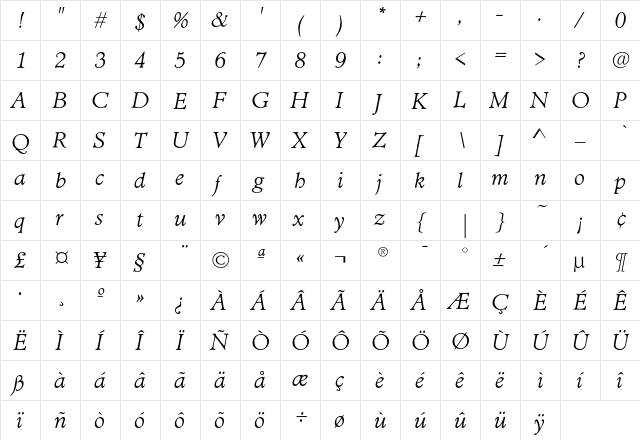
MinisterEF LightItalic Font Preview
MinisterEF LightItalic
Design Context for MinisterEF Typeface
MinisterEF is a composed and adaptable typeface that performs quietly and consistently across a wide range of design contexts. The slanted form adds forward momentum and visual energy. The delicate stroke weight brings airiness and refinement to layouts.
Pro Tip: Use MinisterEF for emphasis, pull quotes, and subheadings where its slanted energy can add rhythm to the layout.